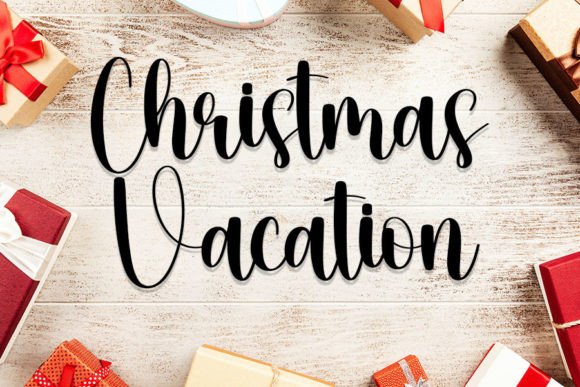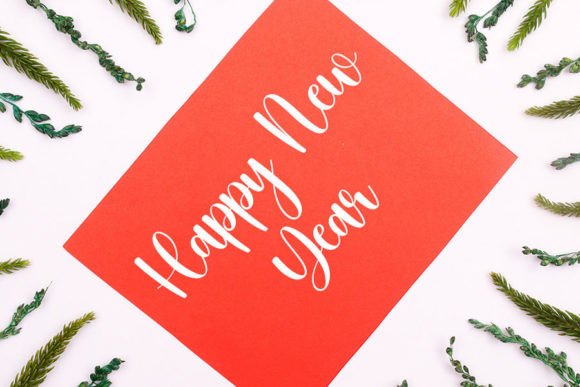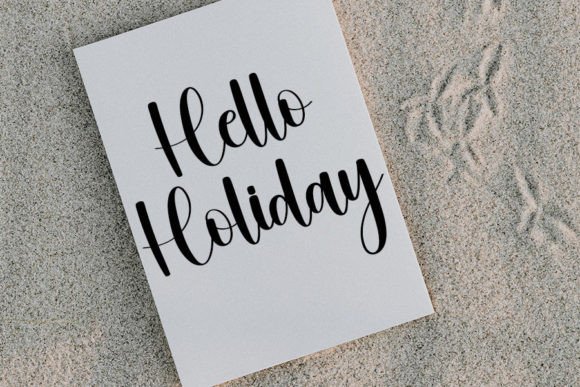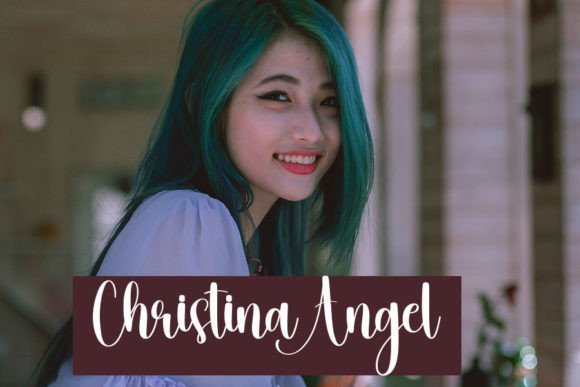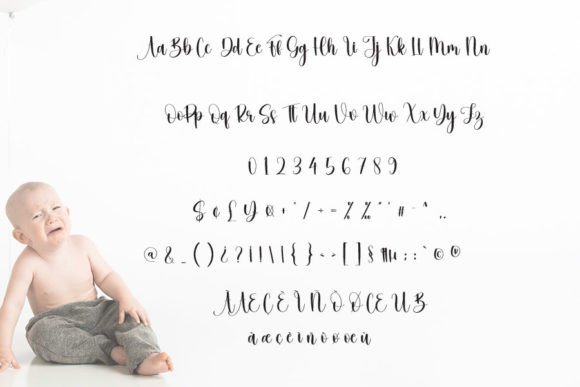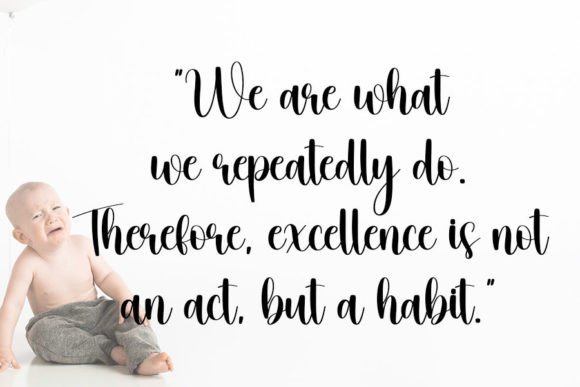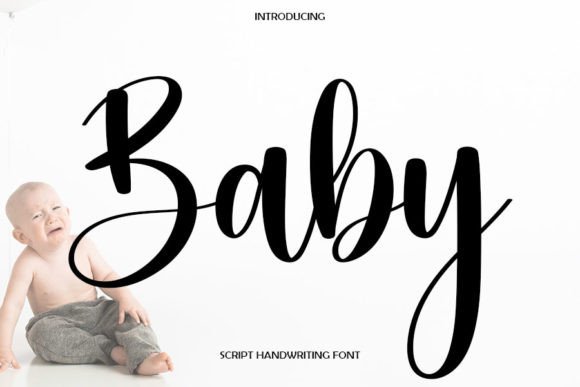
Baby Font: Elevate Your Designs with a Touch of Timeless Elegance
In the world of typography, a well-crafted font can make all the difference in elevating your design projects from ordinary to extraordinary. If you’re on the hunt for a stylish and contemporary handwritten font that exudes impeccable form and timeless classic calligraphy, look no further than Baby Font. In this article, we’ll dive into the world of Baby Font, exploring its features, benefits, and uses, and why it’s become a go-to choice for designers and crafters alike.
The Inspiration Behind Baby Font
Baby Font is a beautiful, handwritten font that draws inspiration from the elegance of classic calligraphy. Its creator aimed to craft a typeface that would bring a touch of sophistication and refinement to modern designs. With its balanced and varied letterforms, Baby Font strikes the perfect balance between traditional and contemporary styles, making it an excellent choice for a wide range of projects.
Key Features of Baby Font
So, what makes Baby Font stand out from the crowd? Here are some of its key features:
- Stylish Handwritten Style: Baby Font boasts a beautiful, handwritten style that’s perfect for adding a personal touch to your designs.
- Contemporary Atmosphere: Despite its classic inspiration, Baby Font has a distinctly modern feel that’s sure to appeal to designers looking for a fresh take on traditional typography.
- Impeccable Form: Each letterform in Baby Font has been carefully crafted to ensure impeccable form and balance, making it a joy to use in a variety of design applications.
- Balanced and Varied: Baby Font’s letterforms are carefully balanced and varied, ensuring that your designs always look polished and refined.
Uses for Baby Font
So, what can you use Baby Font for? The possibilities are endless! Here are a few ideas to get you started:
- Branding and Logo Design: Baby Font’s elegant, handwritten style makes it an excellent choice for branding and logo design projects.
- Wedding and Event Stationery: Add a touch of sophistication and romance to your wedding and event stationery with Baby Font.
- Packaging Design: Baby Font’s modern take on classic calligraphy makes it perfect for packaging design projects that require a touch of elegance.
- Digital Design: Use Baby Font in digital designs, such as social media graphics, blog headers, and more.
Benefits of Using Baby Font
So, why choose Baby Font for your design projects? Here are just a few benefits:
- Unique and Memorable: Baby Font’s stylish, handwritten style ensures that your designs will stand out from the crowd and be remembered.
- Versatile: Baby Font is versatile enough to be used in a wide range of design applications, from branding and packaging to digital design and more.
- Easy to Read: Despite its elegant, cursive style, Baby Font is surprisingly easy to read, making it perfect for body text and headlines.
In conclusion, Baby Font is a beautiful, stylish handwritten font that’s perfect for designers and crafters looking to add a touch of timeless elegance to their projects. With its impeccable form, balanced and varied letterforms, and modern take on classic calligraphy, Baby Font is sure to become a go-to choice for a wide range of design applications. Whether you’re working on branding and logo design, wedding and event stationery, packaging design, or digital design, Baby Font is an excellent choice. So why wait? Give Baby Font a try today and see the difference it can make in your designs!